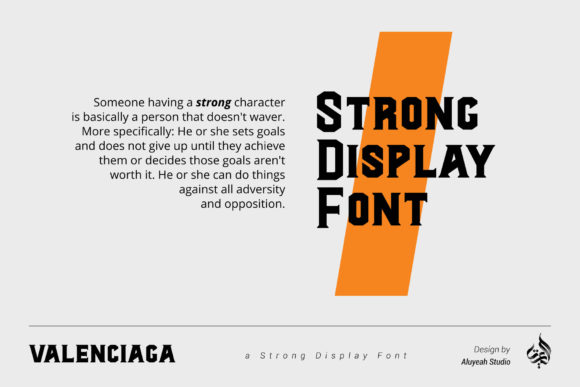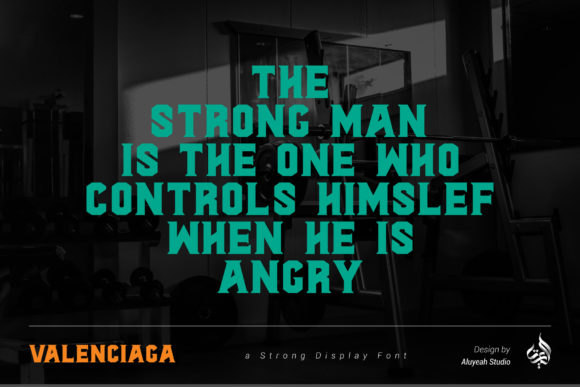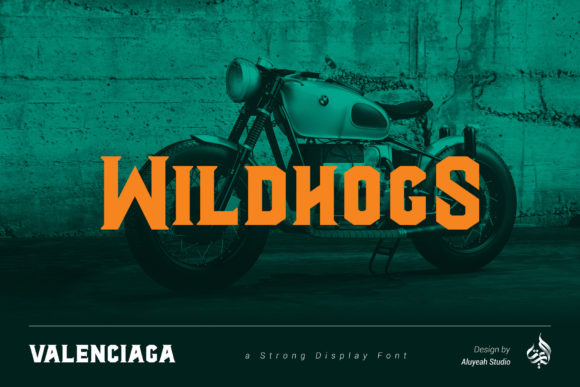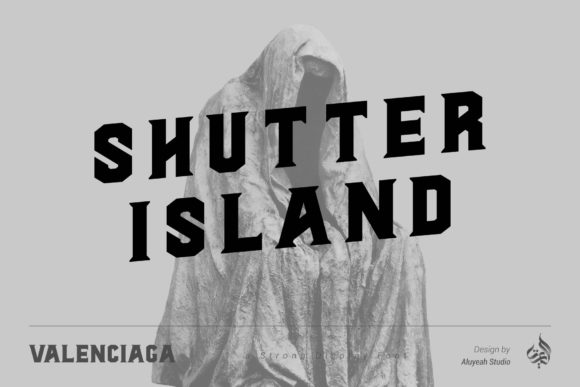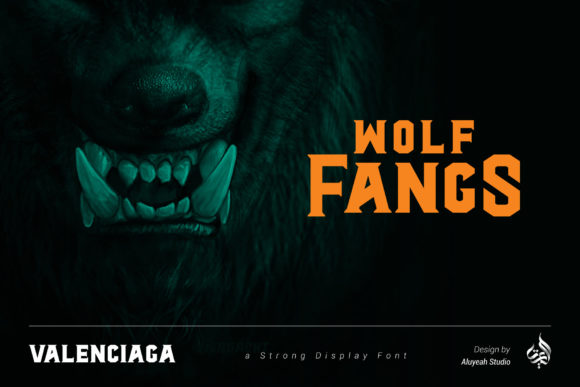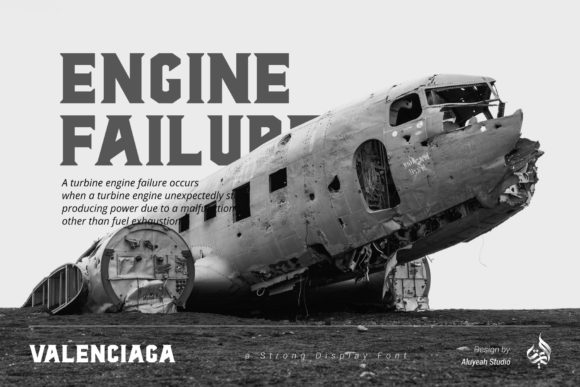
The Perfect Design Companion: AL Valenciaga Font
Have you ever found yourself staring at a blank page, trying to bring a project to life, but struggling to find the right words to express your vision? That’s when the magic happens – you stumble upon the perfect font, and suddenly, everything clicks into place.
Enter AL Valenciaga Font, a stunning display font that’s designed to make a statement. With its bold characters and striking presence, this font is perfect for a wide range of projects, from eye-catching advertisements to elegant packaging designs. Whether you’re a seasoned designer or just starting out, AL Valenciaga Font is an invaluable addition to your toolkit, offering a level of sophistication and style that’s hard to match.
What sets AL Valenciaga Font apart is its versatility – it’s just as at home on a high-fashion runway as it is on a bustling city street. With its unique blend of modernity and classic charm, this font is sure to elevate your designs and leave a lasting impression.
Key Features of AL Valenciaga Font
- Font Family: AL Valenciaga Font is a serif font family designed for use in high-end fashion and luxury branding.
- Font Size: AL Valenciaga Font is available in 6 weights, ranging from Thin to Extra Bold, making it suitable for a variety of applications.
- Unique Characteristics: The font features a unique blend of classic elegance and modern sophistication, making it ideal for luxury brands and high-end fashion labels.
- Resolution: Designed for use at high resolutions, AL Valenciaga Font is suitable for use in print and digital applications, including billboards, magazines, and websites.
- Language Support: Supports a wide range of languages, including Latin, Cyrillic, and Greek alphabets, making it a versatile choice for global brands.
AL Valenciaga Font Review
Initially, I was drawn to the AL Valenciaga Font for its unique blend of modernity and elegance. ✨ The font’s geometric shapes and clean lines make it perfect for creating a luxurious and high-end aesthetic. I’ve used it for various branding projects and have received positive feedback from clients. ✨ The font’s versatility allows it to be used in a variety of contexts, from headings to body text.
However, there are some limitations to consider. ⚠️ The font can appear somewhat generic, which may not be ideal for designers looking for a truly unique solution. Additionally, the font’s weight and spacing can be inconsistent at times, which may require additional fine-tuning to achieve the desired look.
Here are some key pros and cons:
- ✨ Unique blend of modernity and elegance
- ✨ Versatile and suitable for a variety of contexts
- ⚠️ Can appear somewhat generic
- ⚠️ Weight and spacing can be inconsistent
Overall, I would recommend the AL Valenciaga Font for designers looking for a high-end aesthetic. While it may not be perfect, it’s a solid choice for creating a luxurious and sophisticated look. Just be aware of its limitations and be prepared to make some adjustments to achieve the desired result.
To get the most out of the AL Valenciaga font, use it sparingly and strategically to create emphasis and visual interest.
Pair it with clean and simple backgrounds to let the font be the focal point.
Experiment with different font sizes and colors to create a unique look.
The AL Valenciaga font is commonly used for:
Headlines and titles
Brand logos and identity
Editorials and publications
Marketing materials and advertisements
Alternatives to AL Valenciaga Font
1. Museo Sans
Museo Sans is a sans-serif font designed by Jos Buivenga. It is a modern, clean, and versatile font suitable for a wide range of applications, including logos, headings, and body text. Museo Sans is a great alternative to AL Valenciaga Font as it offers a similar feel, but with a more neutral and professional tone.